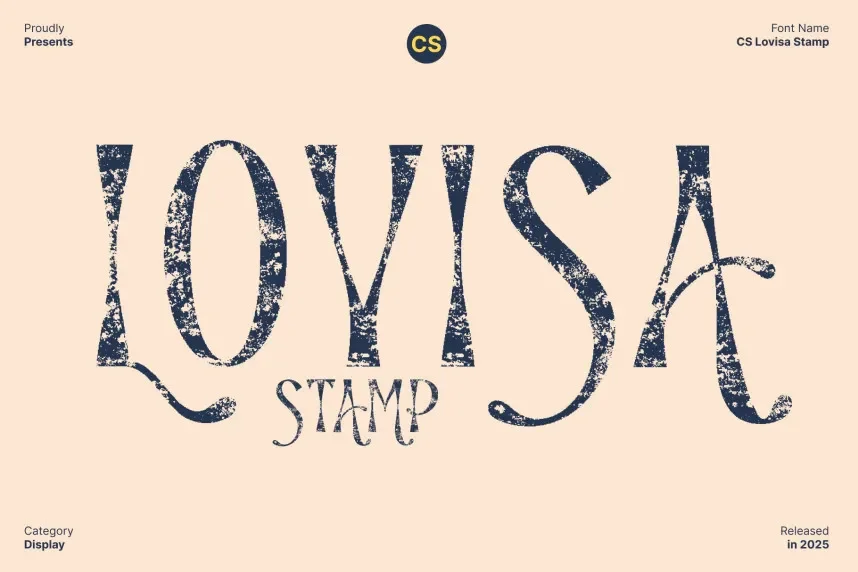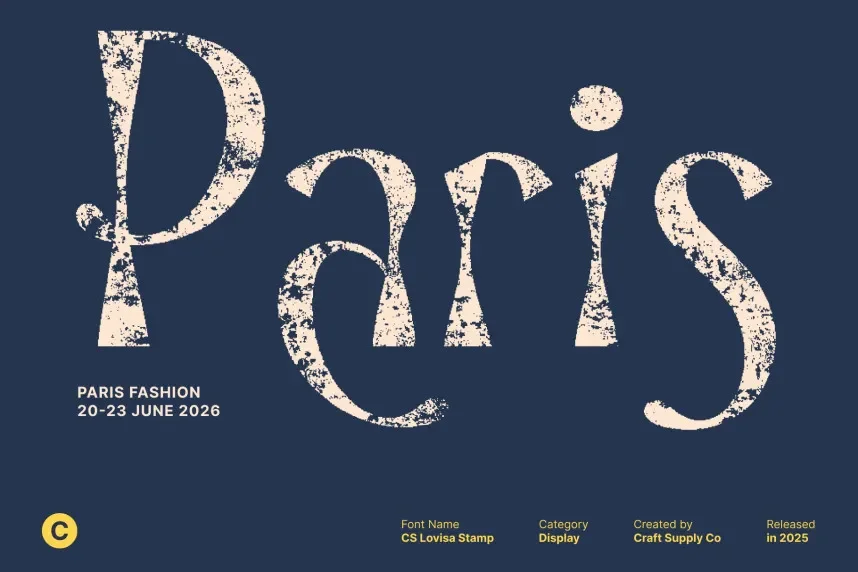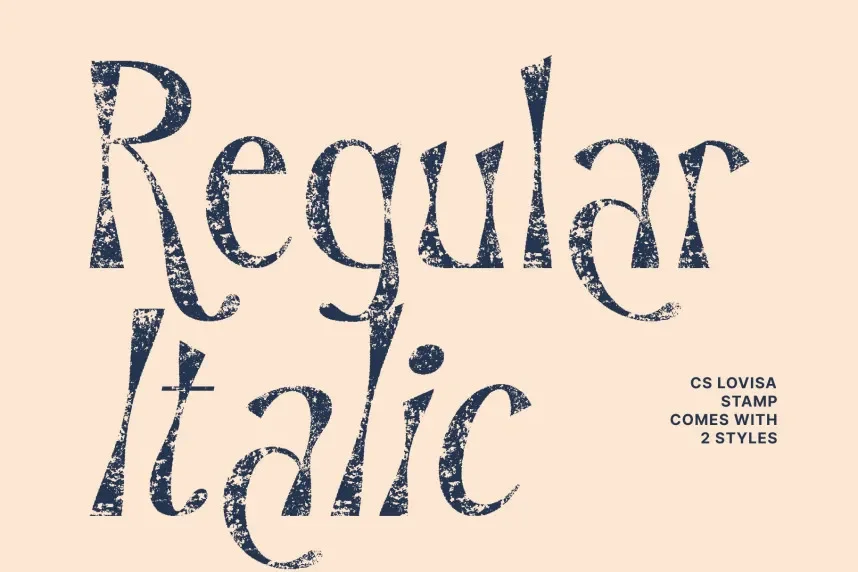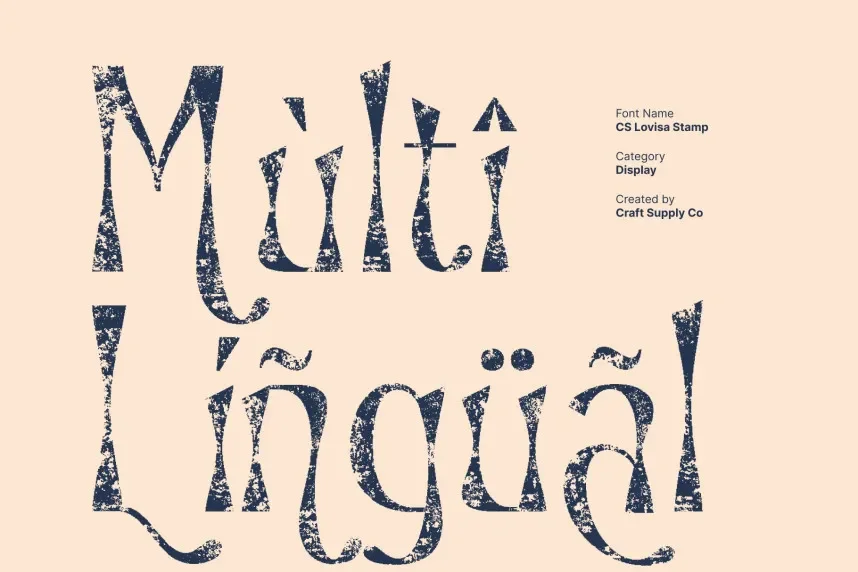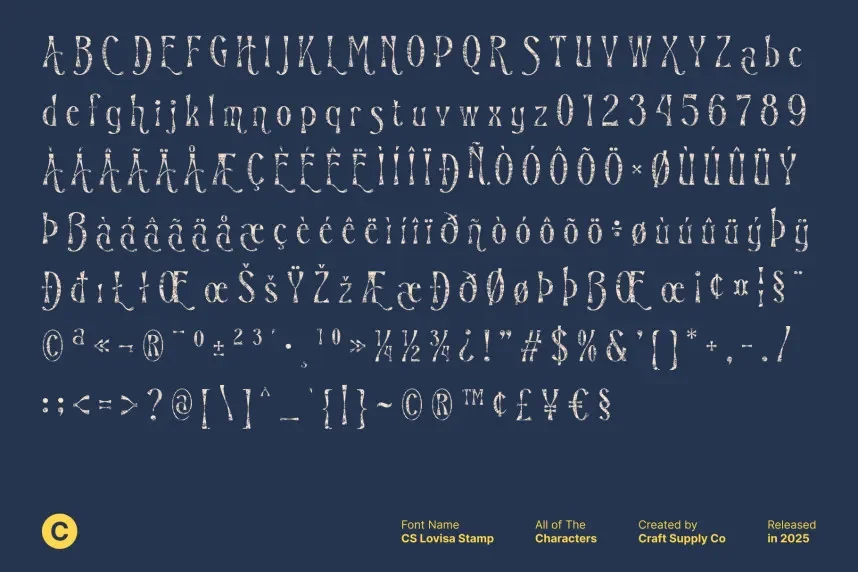
CS Lovisa Stamp Font is a serif-based typeface that combines rugged edges with refined letterforms. The rough, stamped effect gives it a vintage, handcrafted feel, while its balanced proportions and readability make it a versatile option for logos, branding, and invitations.